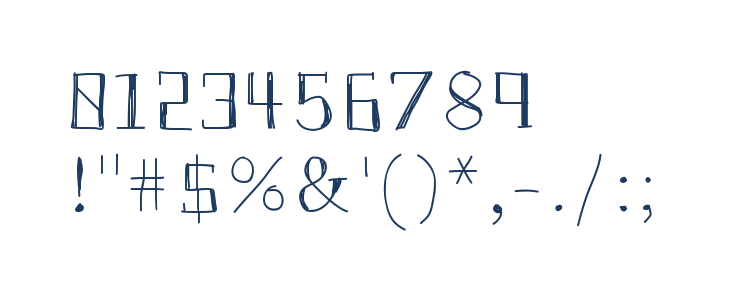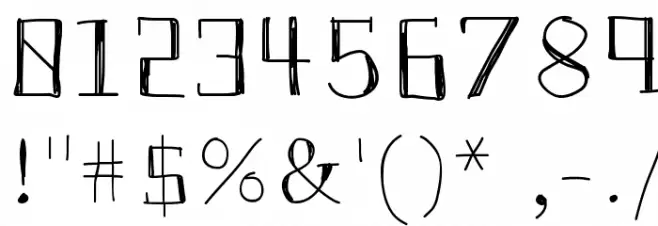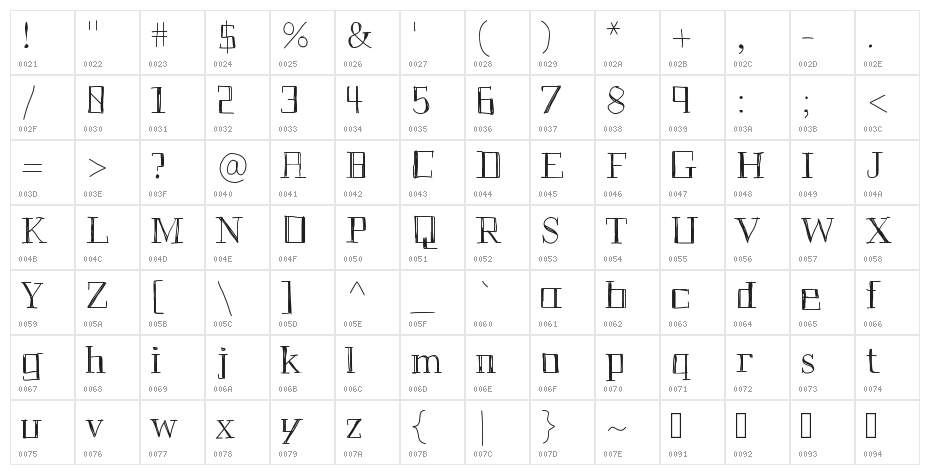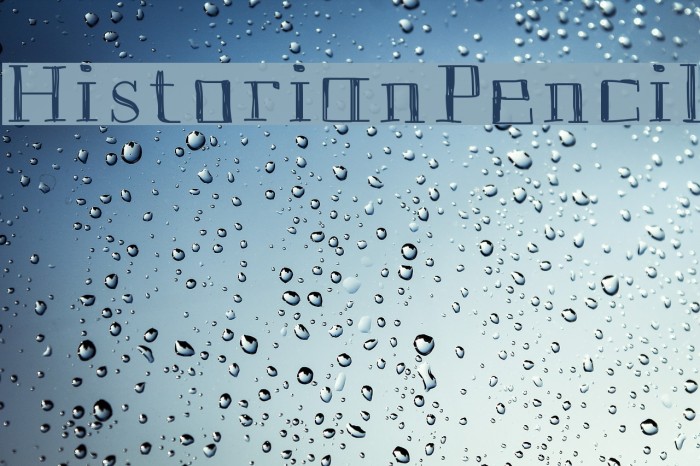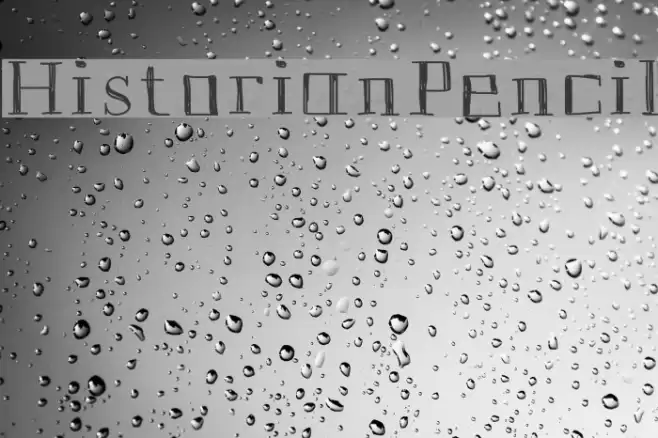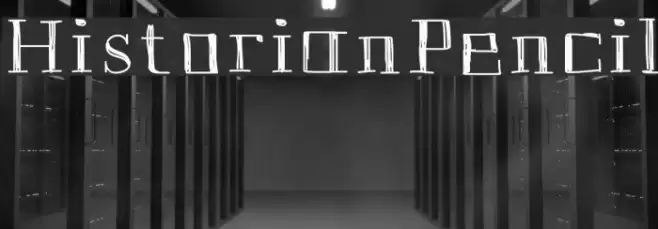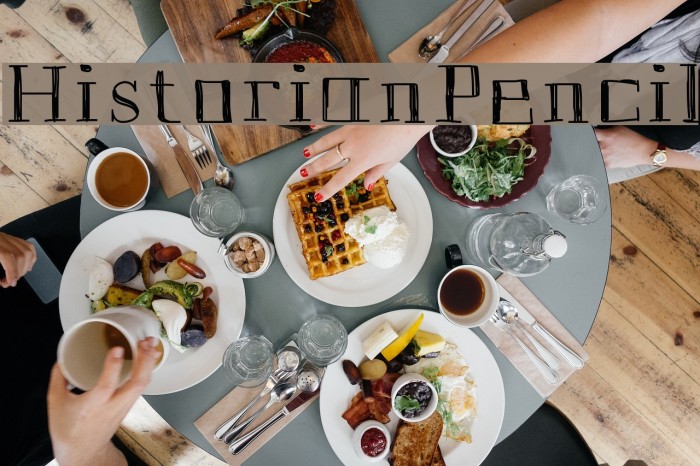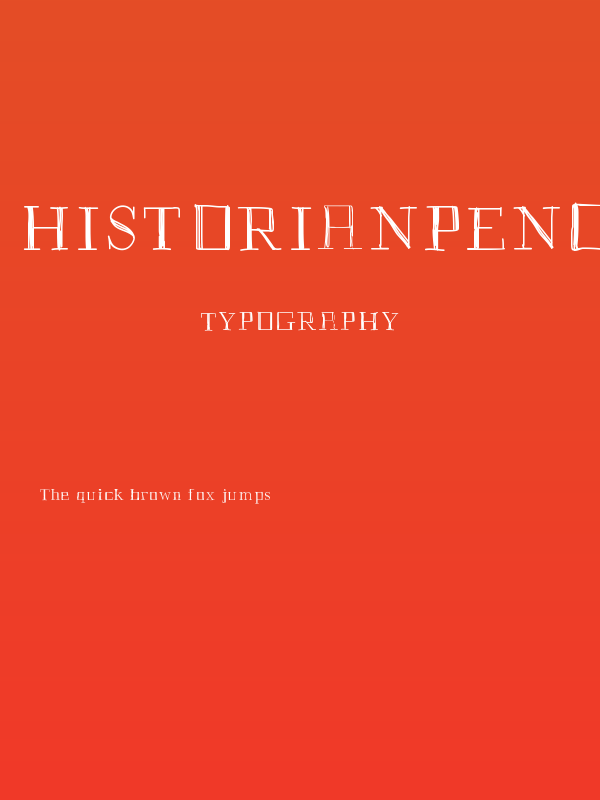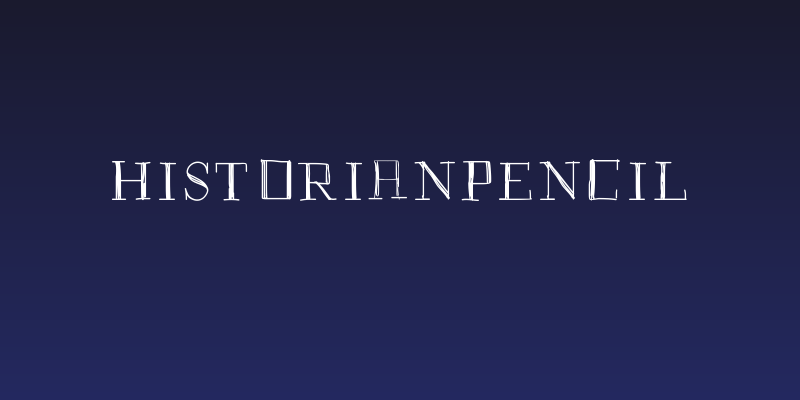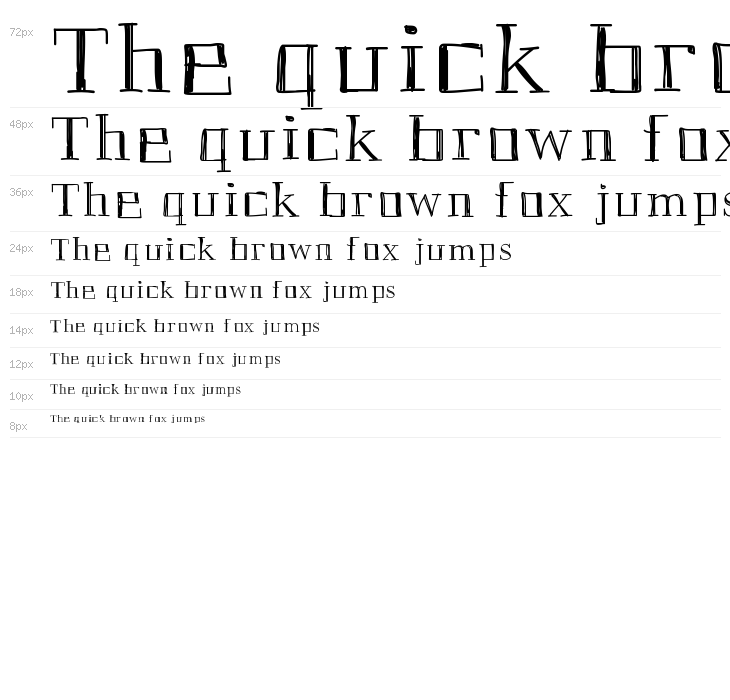
HistorianPencil Font
HistorianPencil Description
This font features a unique, hand-drawn style that combines elements of both serif and decorative fonts. The characters have a sketch-like appearance, with uneven lines and a slightly rough texture, giving them a vintage and artistic feel. The uppercase letters are bold and prominent, while the lowercase letters maintain a consistent style with a playful touch. Numbers and special characters follow the same design ethos, ensuring a cohesive look across all elements. The font's irregularities add charm and character, making it suitable for creative projects that require a personal and handcrafted aesthetic.
| Overall Style | Vintage, Artistic |
| Proposed Projects | Ideal for artistic projects, vintage-themed designs, posters, invitations, and branding that seeks a handcrafted touch. |